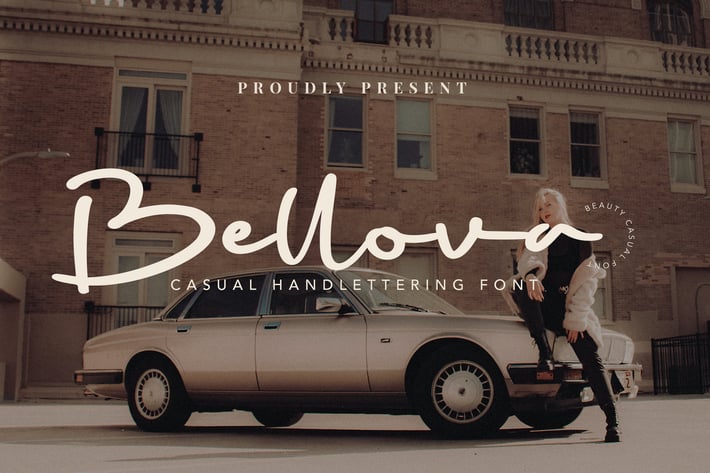
Bellova Signature Font Family
Bellova is a refined and adaptable handwritten font. Its distinct and well rounded letters make this font a work of art. Fall in love with its incredibly versatile style and use it to create fashionable designs.